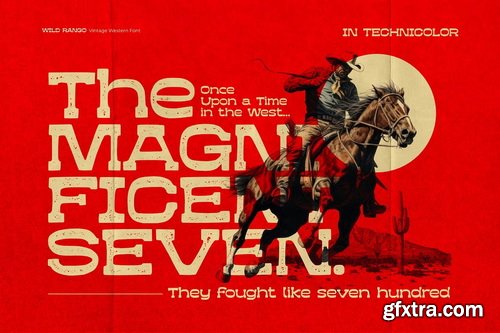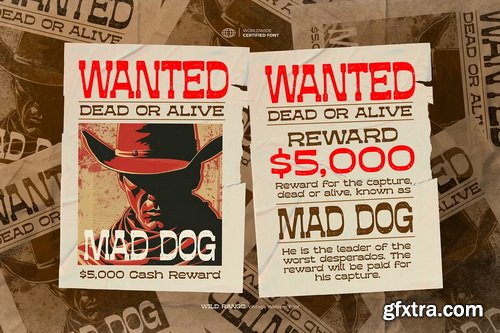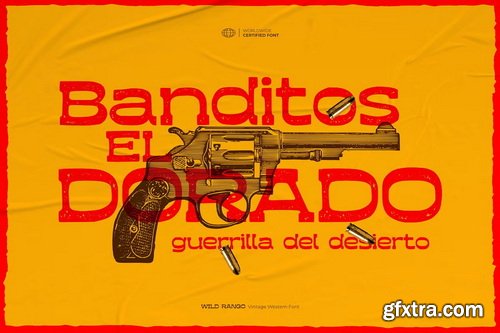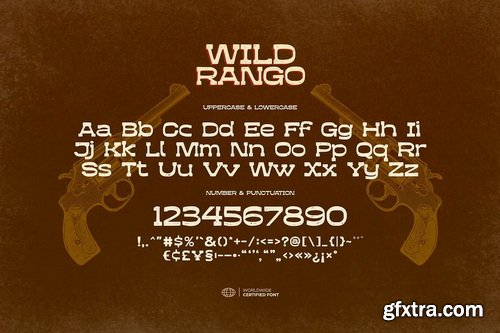
CreativeMarket - Wild Rango - Vintage Western Font
Wild Rango is a classic wild west cowboy-style font designed to evoke the charm and ruggedness of classic Americana. This hand-drawn typeface embodies the spirit of the frontier, making it the perfect choice for any project that wants to convey a sense of adventure and nostalgia. This font is very suitable for making a classic american stuff, vintage western movie, book cover, magazine layout, packaging, food & beverages, quotes, or simply as a stylish text overlay to any background image.